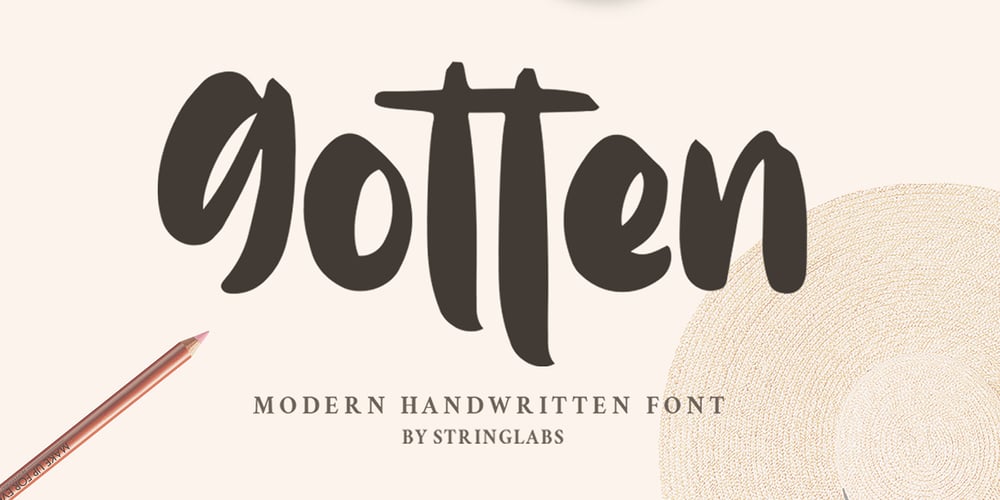
Gotten Font Family was designed by Virgiawan Listanto and published by Stringlabs Creative Studio. Gotten contains 1 styles and family package options. Gotten combines authenticity and elegance into one truly stunning script. Use it to turn any design project into a true piece of art! The Gotten font is a great choice to increase the prominence in your project. Although the typography is traditional, the basic elements are great.